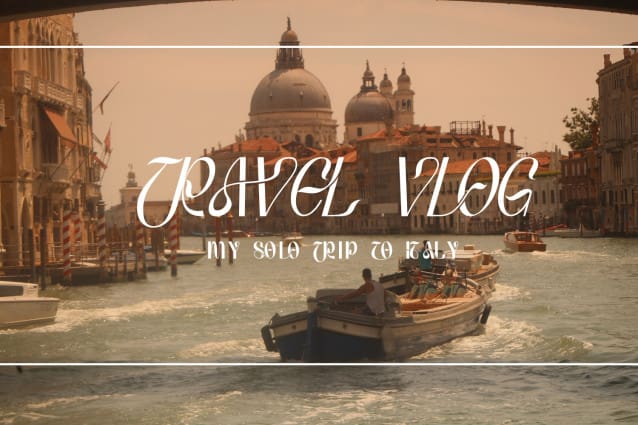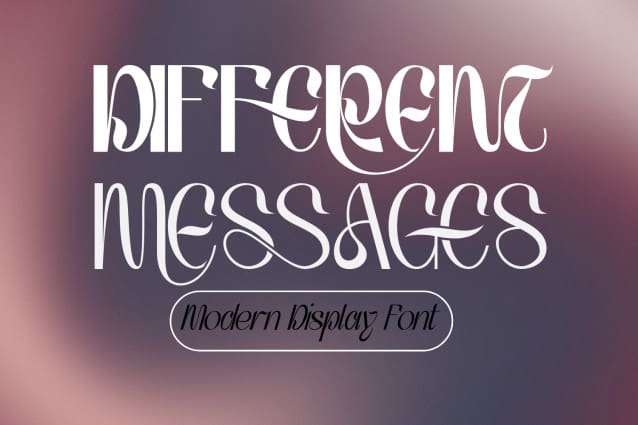
Different Messages Font
DIFFERENT MESSAGES FONT — a highly stylized typeface with over the top psychedelic vibes. One of a kind, certainly not the kind of typeface you see everyday. Modern Modern Display Font, use this font for any branding, product packaging, invitation, quotes, t-shirt, label, poster, logo etc.
DIFFERENT MESSAGES was built with OpenType features and includes 100 ligatures, alternate, numbers, punctuation, and it also supports other languages.
AC AD AL AN AR AS AT AU AV BE CA CE CH CO CT DE DI EA EC ED EE EL EM EN EP ER ES ET FE FO FR GE HA HE HI HO IE IC IL IN IO IR IS IT JU KE LA LE LI LL LO LY MA ME MI NC ND NE NG NO NT NS OC OF OM ON OO OP OR OT OU OW PA PR RA RD RE RI RO RS RT SE SH SI SO SS ST TA TE TH TI TO TR TT UM UN UR VE WI WO